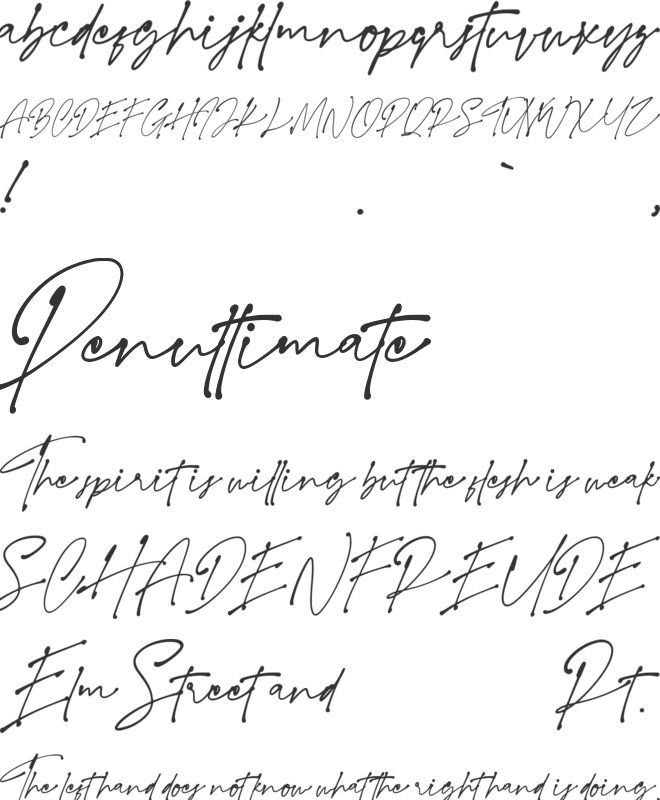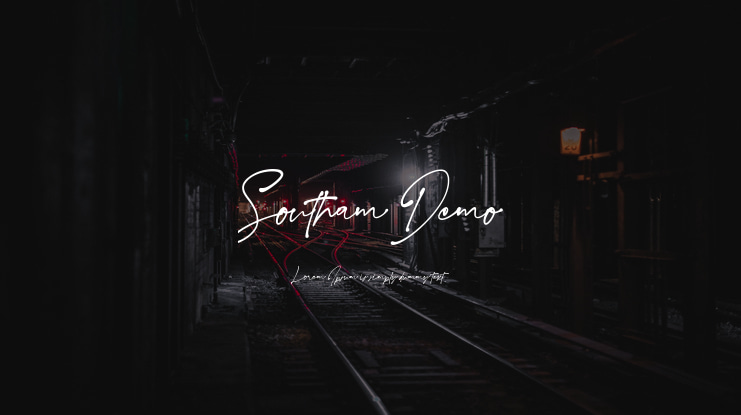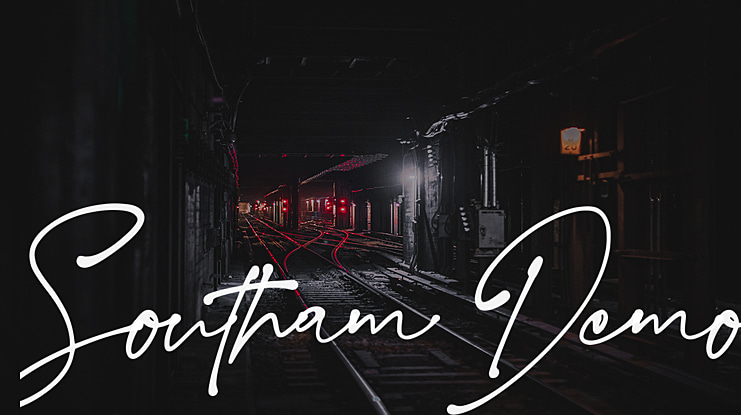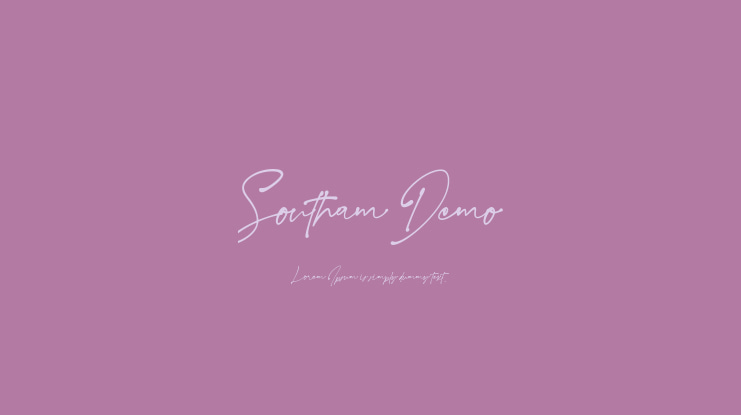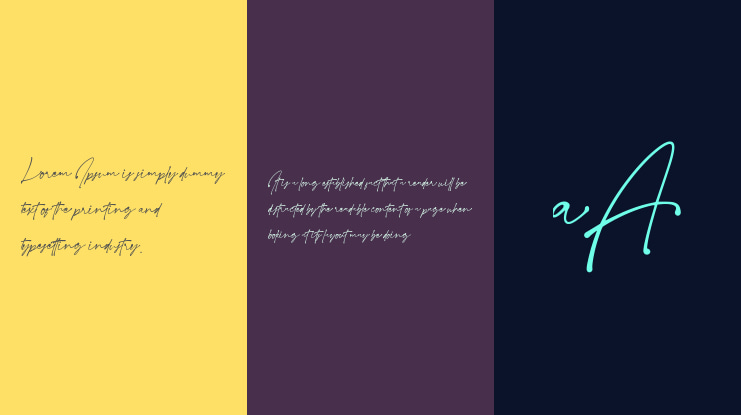
Southam Demo Font
Southam is signature text with ink style & natural flow. Elegant fonts with natural hand scratches. This signature font is perfect for weddings, watermarks, branding, such as interviews, business cards, product logos, etc.
Southam is perfect for branding projects, logos, wedding designs, social media posts, advertisements, product packaging, product designs, labels, photography, watermarks, invitations, stationery, and any project that requires a sense of handwritten signature.